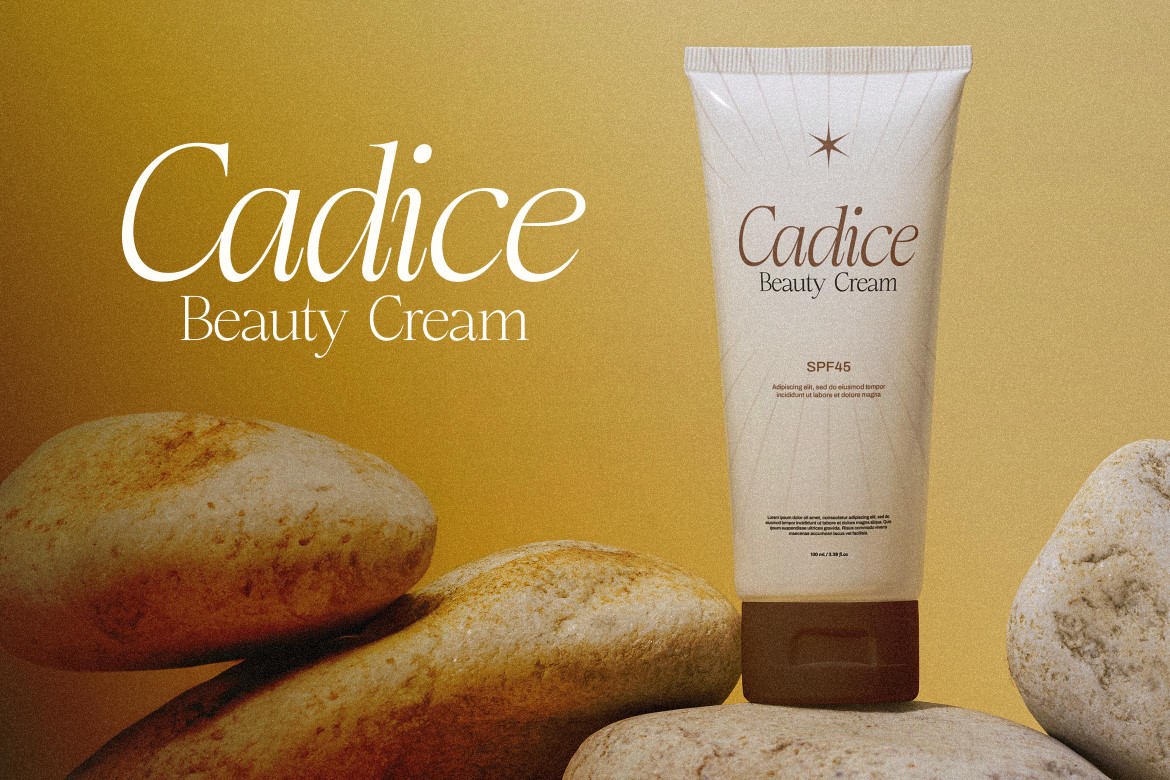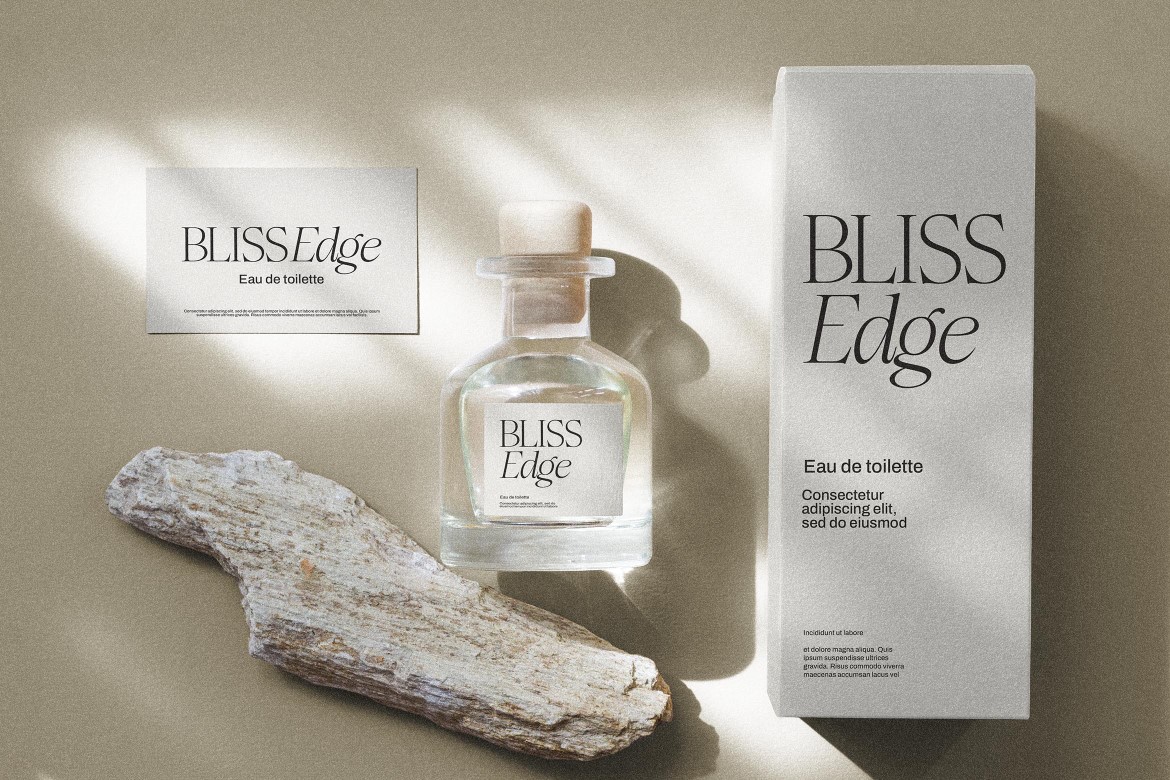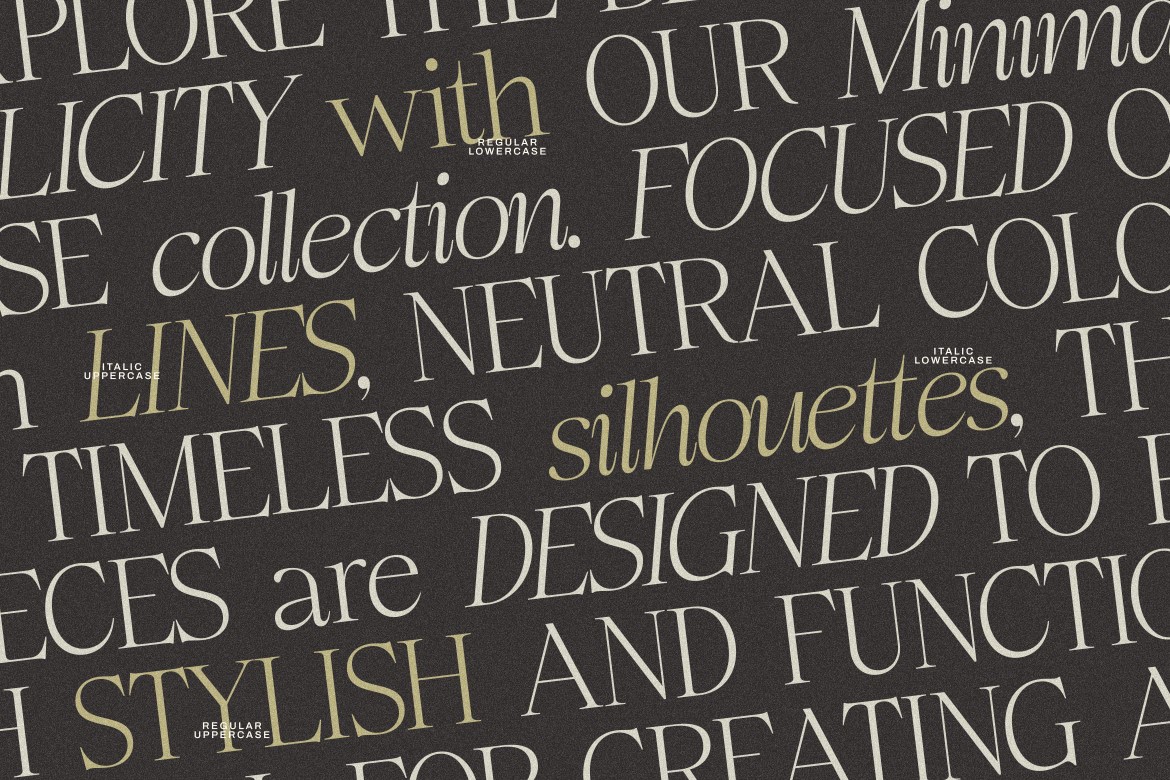
Romans Branding is an elegant serif duo font that blends timeless sophistication with modern branding appeal. Featuring two beautifully crafted styles—Regular and Italic Script Serif—this typeface offers contrast and harmony in one versatile package. It’s perfect for upscale branding projects that demand both classic beauty and dynamic flair.
Designed to elevate visual identity and brand storytelling, Romans Branding is ideal for logo design, headline titles, packaging, invitations, and editorial layouts. The combination of clean serif structure and elegant script rhythm allows designers to pair styles effortlessly, bringing a premium and professional look to any design.
This typeface is a refined solution for creatives who want to make an elegant statement with every letter.
Font Features:
- Elegant Duo Typeface – Includes both Regular Serif and Script Serif styles.
- High Contrast Details – Clean, sharp serifs for strong visual presence.
- Complete Character Set – Includes uppercase, lowercase, punctuation, numbers, and symbols.
- OpenType Features – Stylistic alternates and ligatures included.
- Multilingual Support – Supports Western European languages.
Perfect For:
- Luxury Branding – Build refined, upscale visual identities.
- Logo Design – Combine both styles for elegant, memorable marks.
- Editorial Projects – Ideal for titles, covers, and sophisticated layouts.
- Product Packaging – Add timeless beauty to boxes, labels, and tags.
- Invitations & Stationery – Elegant script styling for formal use.
Romans Branding brings a perfect balance of structure and grace—crafted for premium designs that speak with elegance.